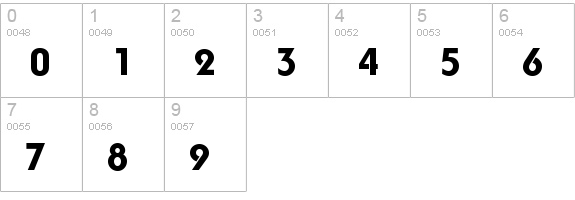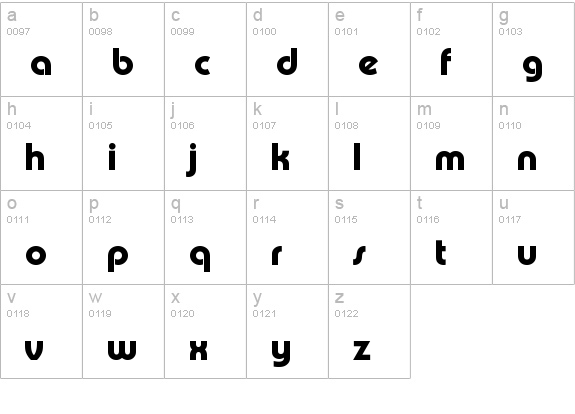
PumpEF-Medium Font Details
PumpEF-Medium is a balanced, medium-weight variant in the PumpEF typeface family \xE2\x80\x94 well suited to sub-headlines, navigation, and balanced editorial work.
PumpEF-Medium font is a stylish and versatile typeface that exudes sophistication and modernity. With its balanced letterforms and clean lines, this font is perfect for a wide range of design projects, from branding to editorial design. The medium weight of PumpEF-Medium strikes the perfect balance between elegance and readability, making it suitable for both display and body text. What sets PumpEF-Medium font apart is its seamless integration of classic and contemporary design elements, resulting in a timeless and versatile typeface. Whether you're designing a sleek website, a chic magazine layout, or a high-end branding project, PumpEF-Medium font will elevate your design and give it a touch of sophistication. Best of all, PumpEF-Medium font is available for free download at FontsMarket.com, making it accessible to designers of all levels. Don't miss out on the opportunity to add this stunning font to your collection and take your designs to the next level. Download PumpEF-Medium font today and see the difference it can make in your projects.